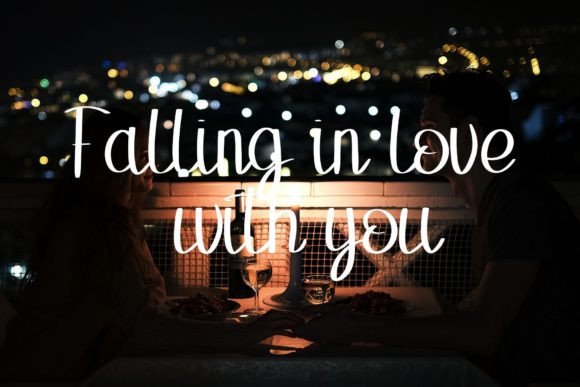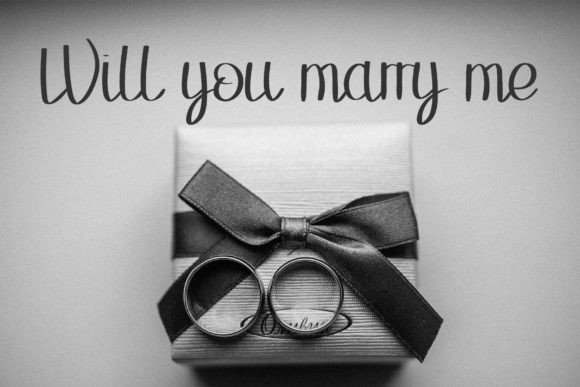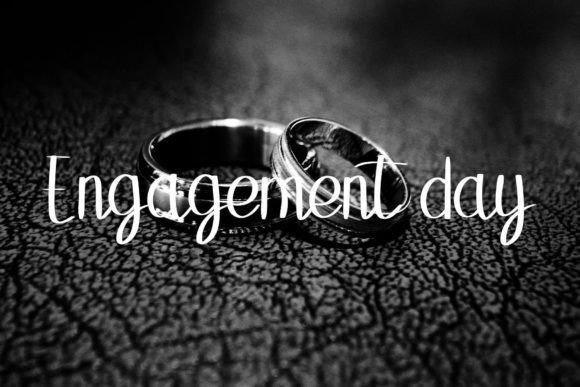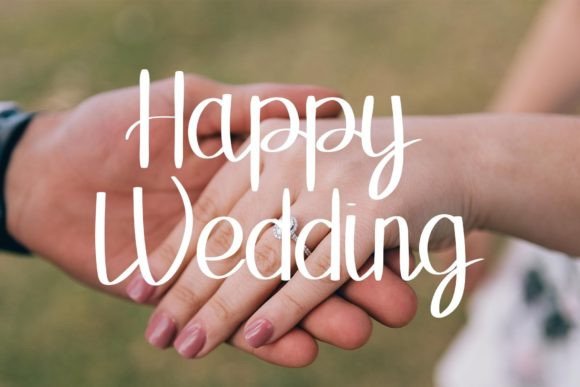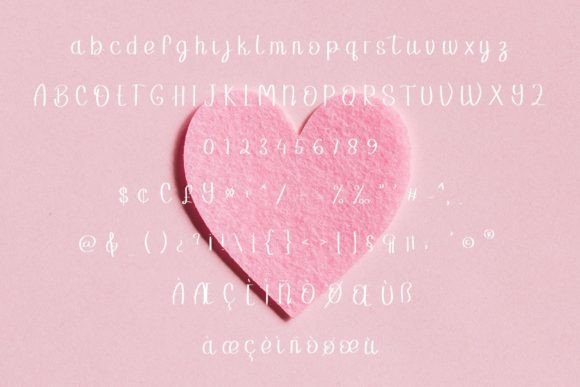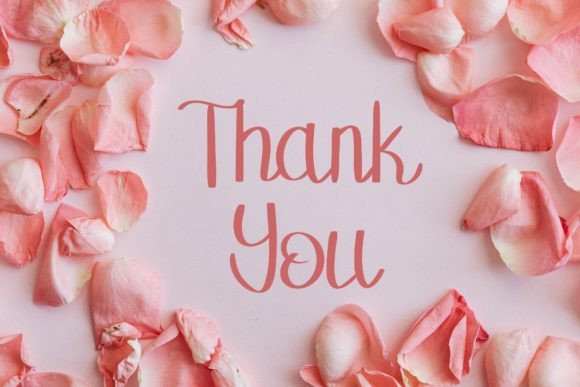
Romantic Dinner Font
About Romantic Dinner Font
Introducing Romantic Dinner, a lively and friendly handwritten font designed to add a touch of fun to your designs. With its playful style, Romantic Dinner has the ability to turn any design idea into a true standout. Get inspired by its unique charm and use it to create lovely designs that capture the heart.
This font goes beyond being a mere set of letters; it serves as a creative tool to bring a playful and friendly vibe to your projects. Whether you’re working on posters, social media graphics, invitations, or any other creative endeavor, Romantic Dinner brings a sense of joy and approachability.
Embrace the distinctive charm of Romantic Dinner as you explore its creative possibilities. Let it be the catalyst that transforms your design concepts into visually appealing and lovable creations. Whether used for headlines, logos, or any other design element, Romantic Dinner ensures that your projects radiate warmth and personality.
Incorporate Romantic Dinner into your design toolkit and witness how it can elevate your ideas into something extraordinary. Let the fun and friendly vibes of this handwritten font bring a new level of creativity and joy to your projects, making them not only visually appealing but also filled with a delightful charm that captures attention.